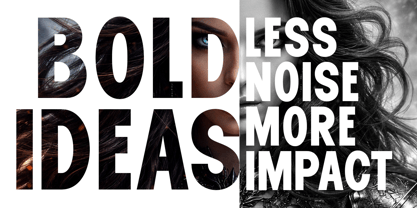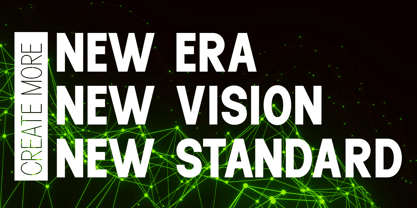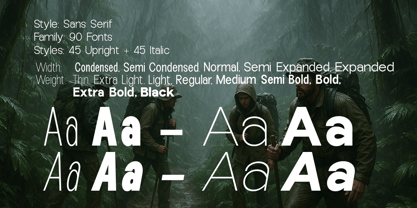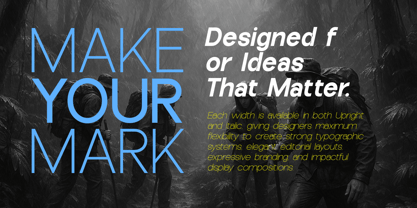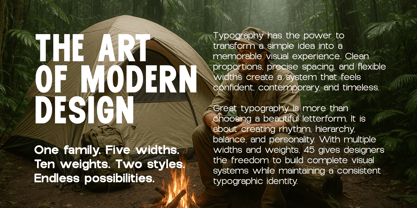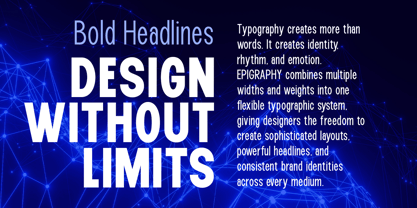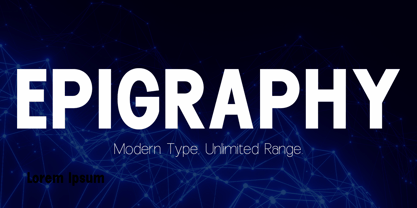
Epigraphy
by Jorsetype
The Epigraphy Font Family was designed by Roiyani Teungku and published by Jorsetype. Epigraphy contains 90 styles and family package options. More about this family
EPIGRAPHY is a modern and versatile sans serif typeface family built around precision, balance, and typographic flexibility. With 90 fonts, the family includes 45 Upright and 45 Italic styles, covering five carefully designed width categories: Condensed, Semi Condensed, Normal, Semi Expanded, and Expanded.
Each width is available in a complete range of weights from Thin to Black, allowing EPIGRAPHY to effortlessly shift from delicate and refined typography to bold, powerful headlines.
Designed with clean forms, balanced proportions, and a contemporary character, EPIGRAPHY is ideal for branding, logos, editorial design, posters, magazines, packaging, advertising, websites, UI/UX, corporate identity, signage, headlines, and display typography.
The extensive width and weight system makes EPIGRAPHY a complete typographic toolkit for designers who need consistency without sacrificing creative freedom. Whether you are creating an elegant editorial layout, a strong brand identity, or a bold advertising campaign, EPIGRAPHY provides the flexibility to make every word stand out.
One family. Five widths. Ten weights. Two styles. Endless possibilities.